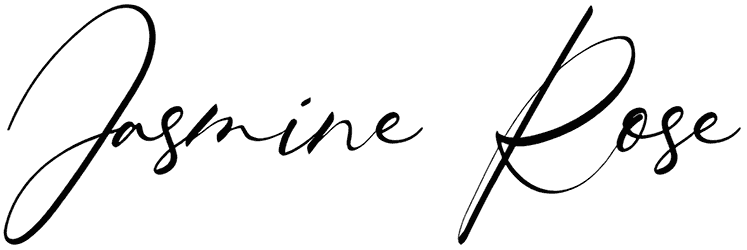
Jasmine Rose Font
We have just added a marvelous script font, the same as Jasmine Rose, that comes with a cursive style and crooked characters. Due to its delicate form, this handwritten font can share a sense of professionalism, softness, or tenderness with the audience and engage them with your artwork.
In addition, it would look insanely perfect on book covers, invitations, diplomas, digital banners, or headings. Just in case you require another font, don’t hesitate to visit the RB expanding archive.
Designed by: Mochammad Muchsinin